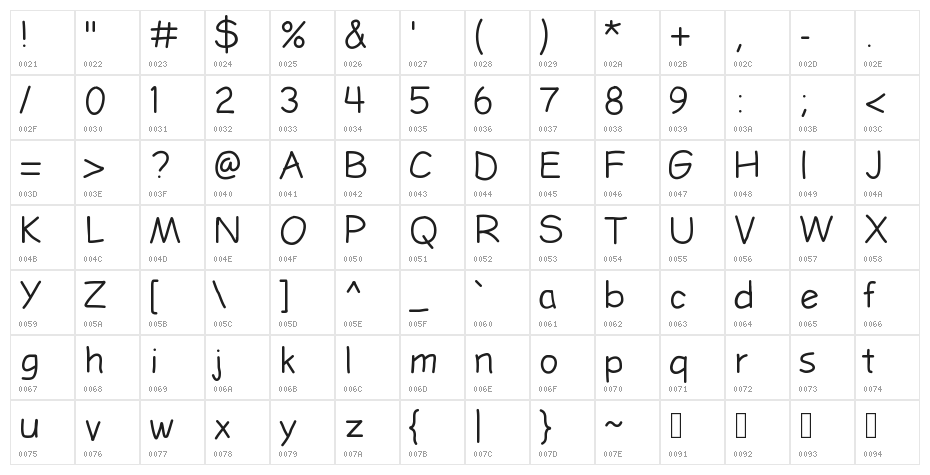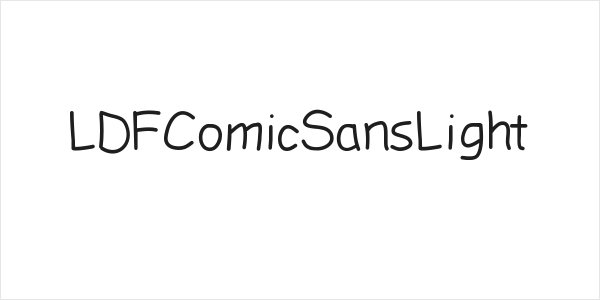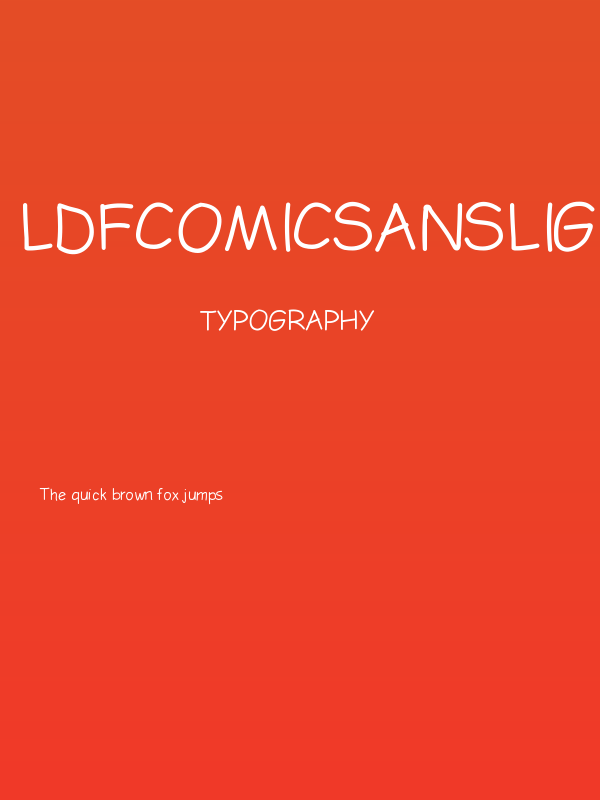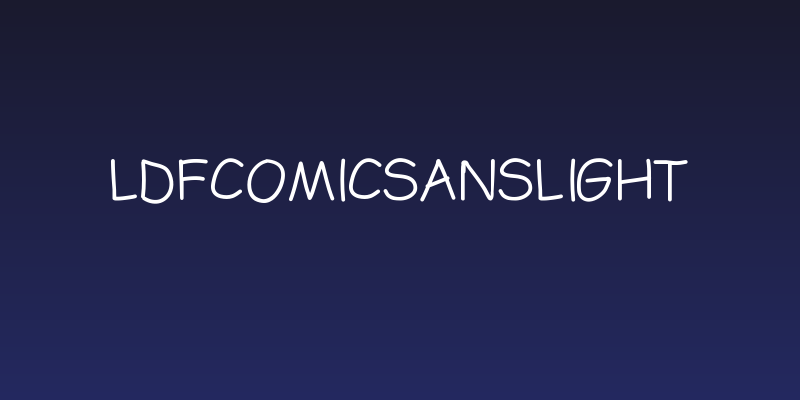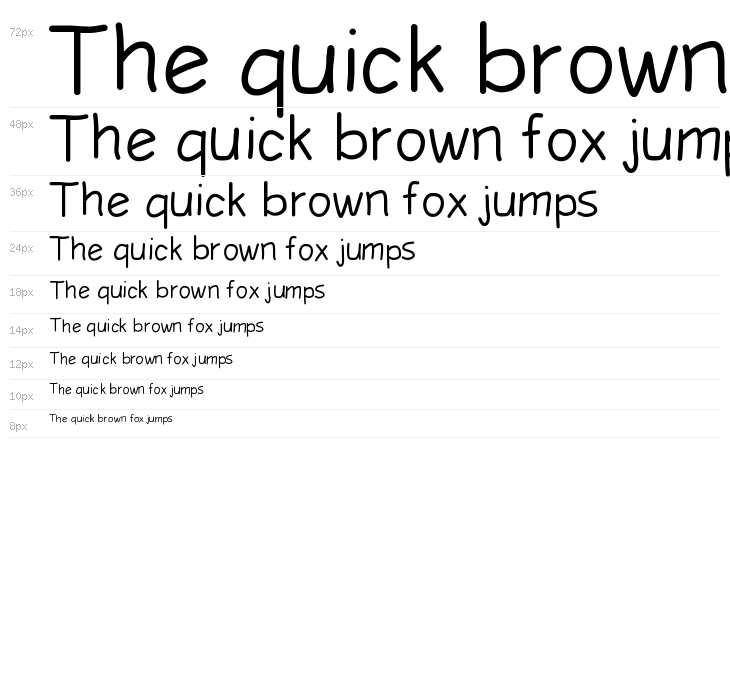
LDFComicSansLight Font
| Peso | Light |
| Stile generale | Casual |
| Caso d'uso | Informal documents, children's materials, playful designs. |
| Progetti proposti | Ideal for children's books, informal documents, greeting cards, and playful branding. |